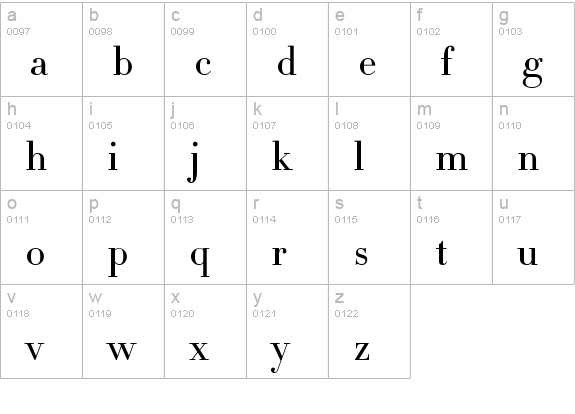
Didot-HTF-L06-Light is a refined, elegant variant in the Didot typeface family \xE2\x80\x94 well suited to elegant body text, refined sub-headings, and luxury branding.
Didot-HTF-L06-Light is a classic and elegant font that exudes sophistication and style. With its clean lines and thin strokes, this font is perfect for adding a touch of refinement to any design project. Whether you are creating invitations, advertisements, or branding materials, Didot-HTF-L06-Light will surely make a lasting impression. The light weight of this font gives it a delicate and airy quality, making it ideal for conveying a sense of grace and subtlety. Its timeless design ensures that it will remain a versatile choice for a wide range of applications. Best of all, Didot-HTF-L06-Light is available for free download at FontsMarket.com. You can easily access this stunning font and incorporate it into your projects without any hassle. Don't miss out on the opportunity to enhance your designs with the beauty and sophistication of Didot-HTF-L06-Light.